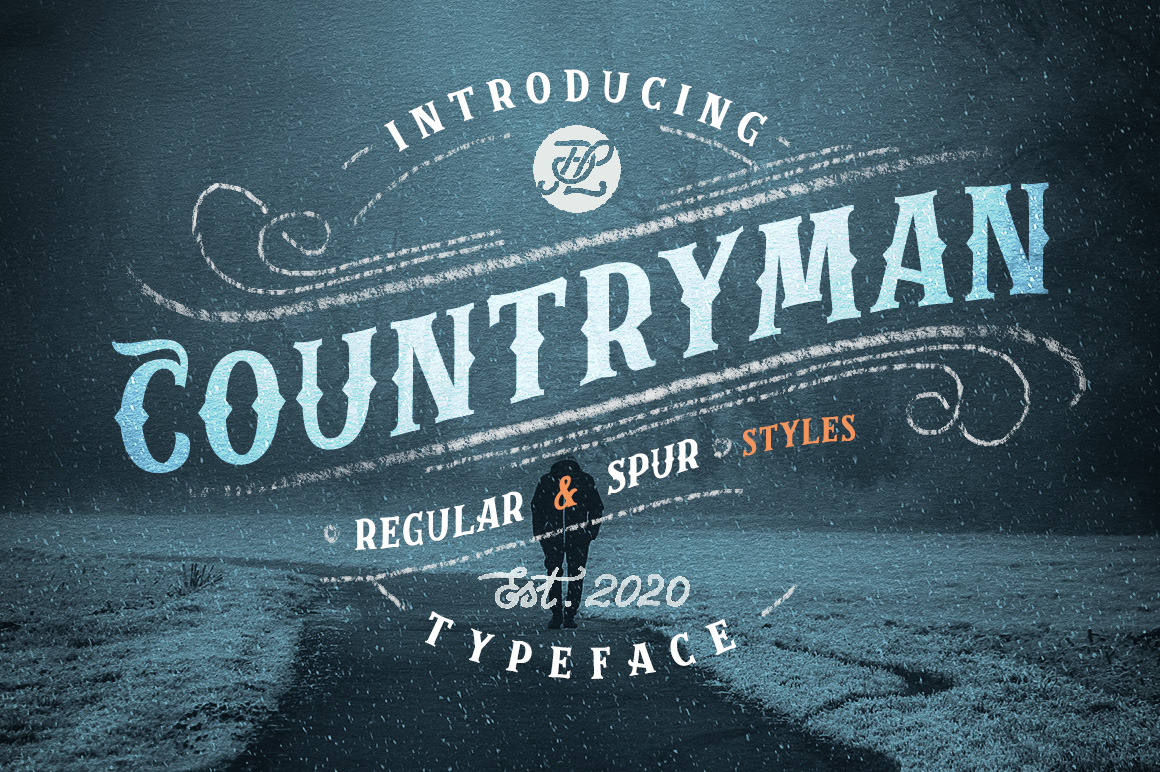
Countryman - Western Type Font + Web
My very first font here. The typeface was created based on many of my hand-lettering designs to easier further work with headlines for flyers, labels, tags and any more.
The font has two styles - Regular and Spur, inspired by western old letterings. Only the uppercase letters incorporated and multilingual glyphs too. Hope you enjoy it!